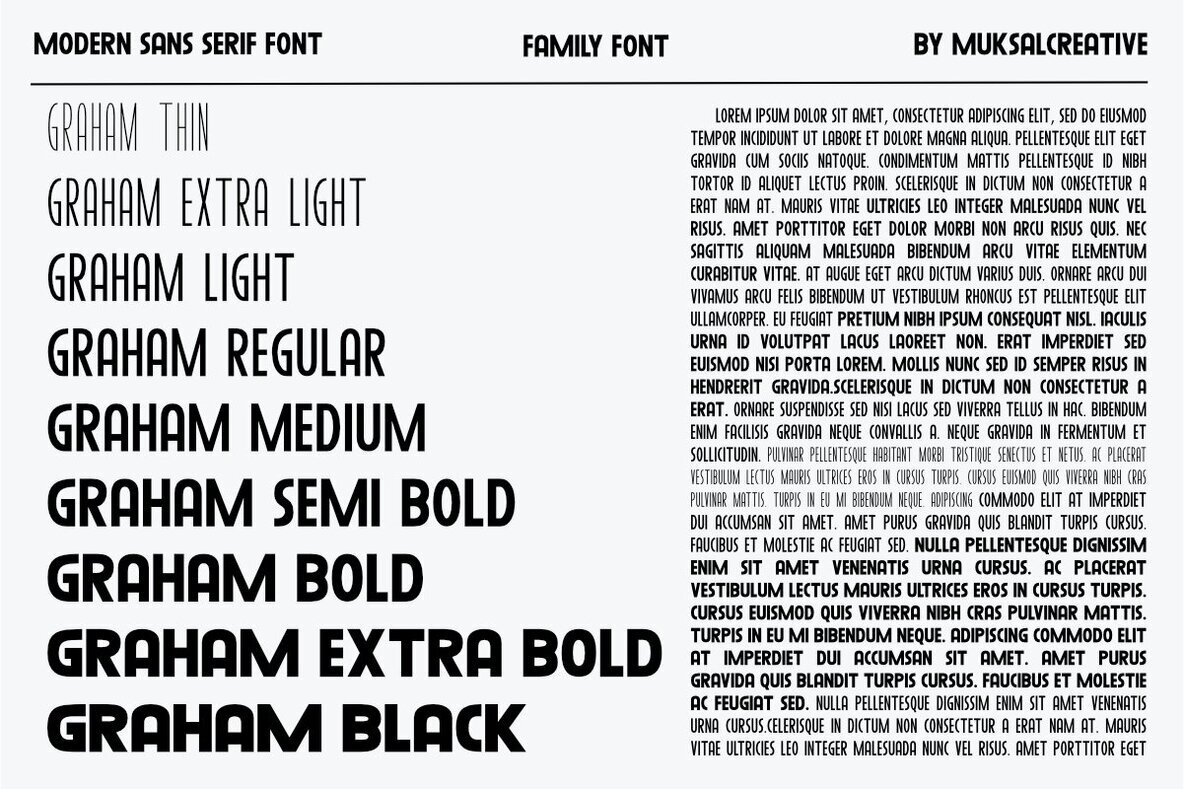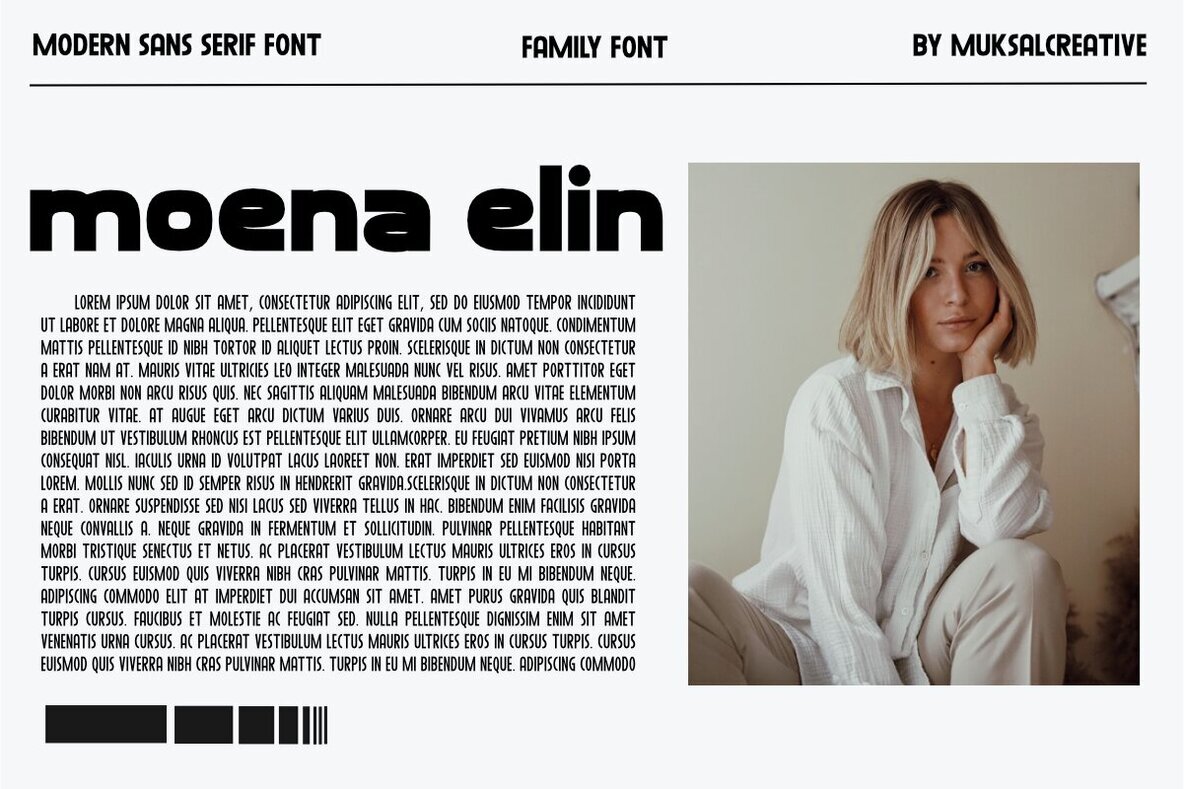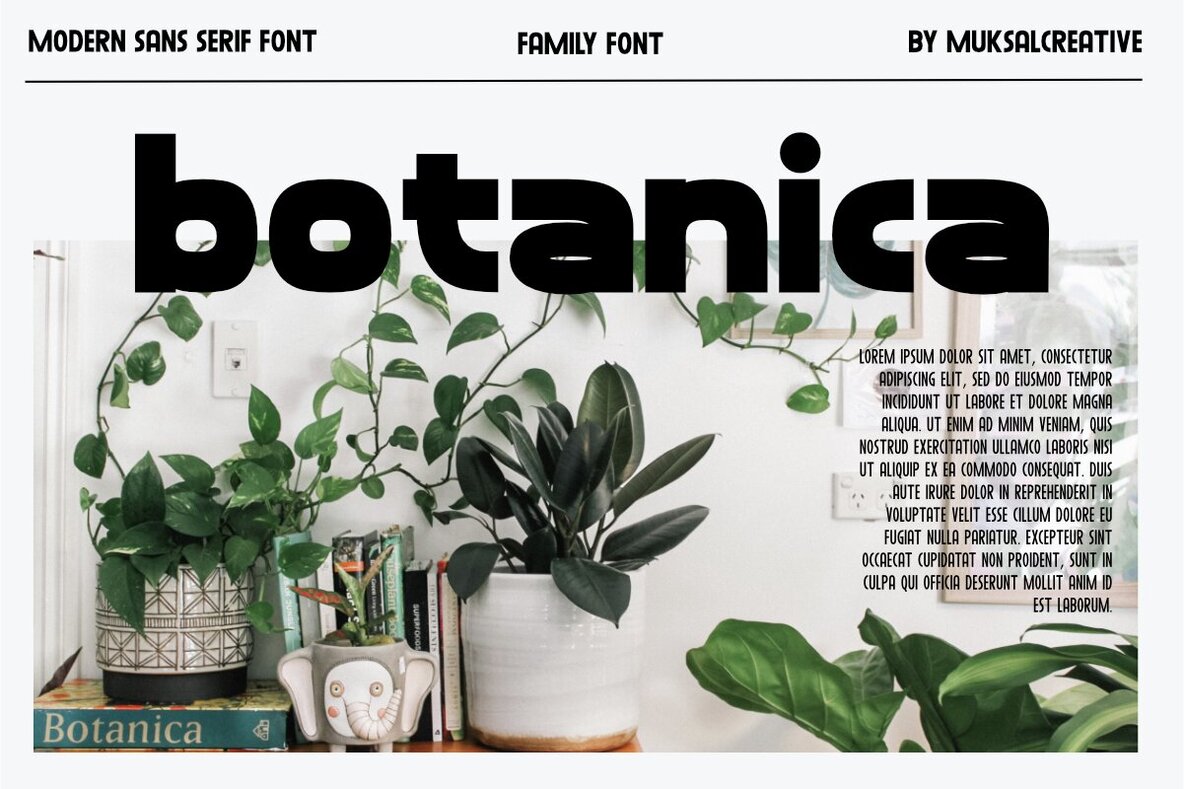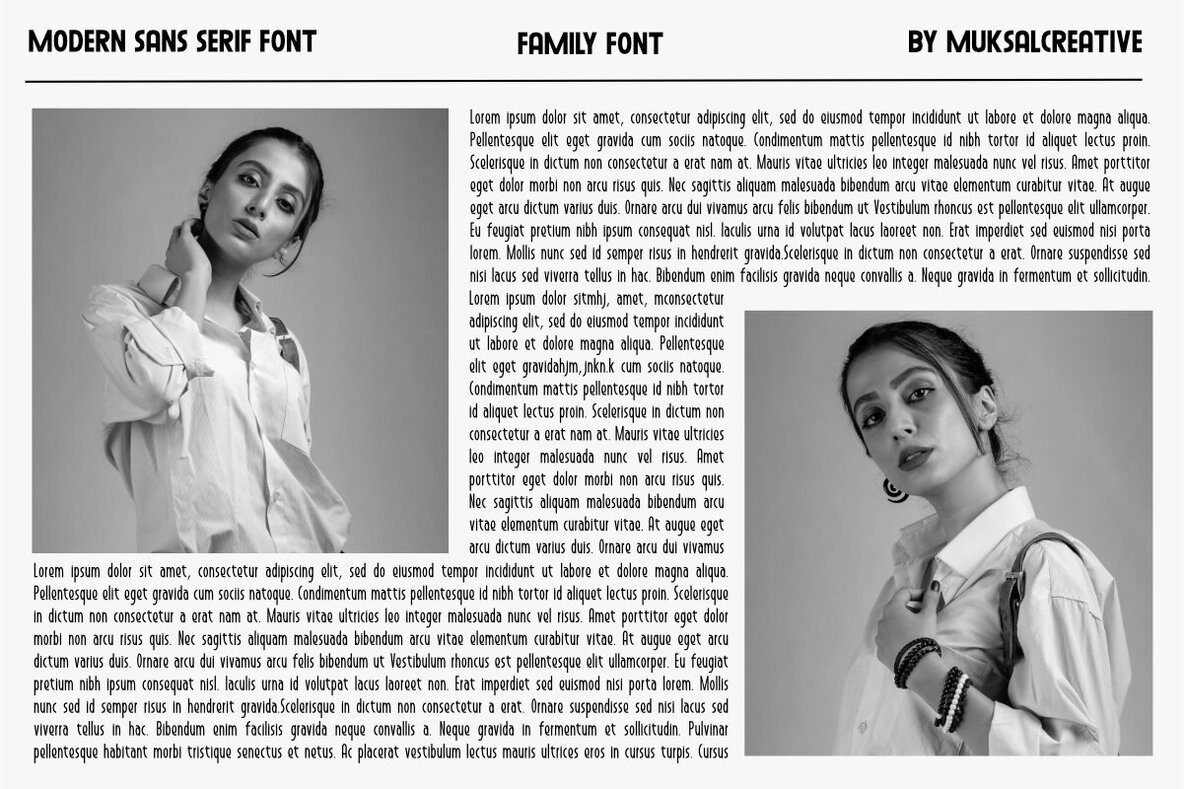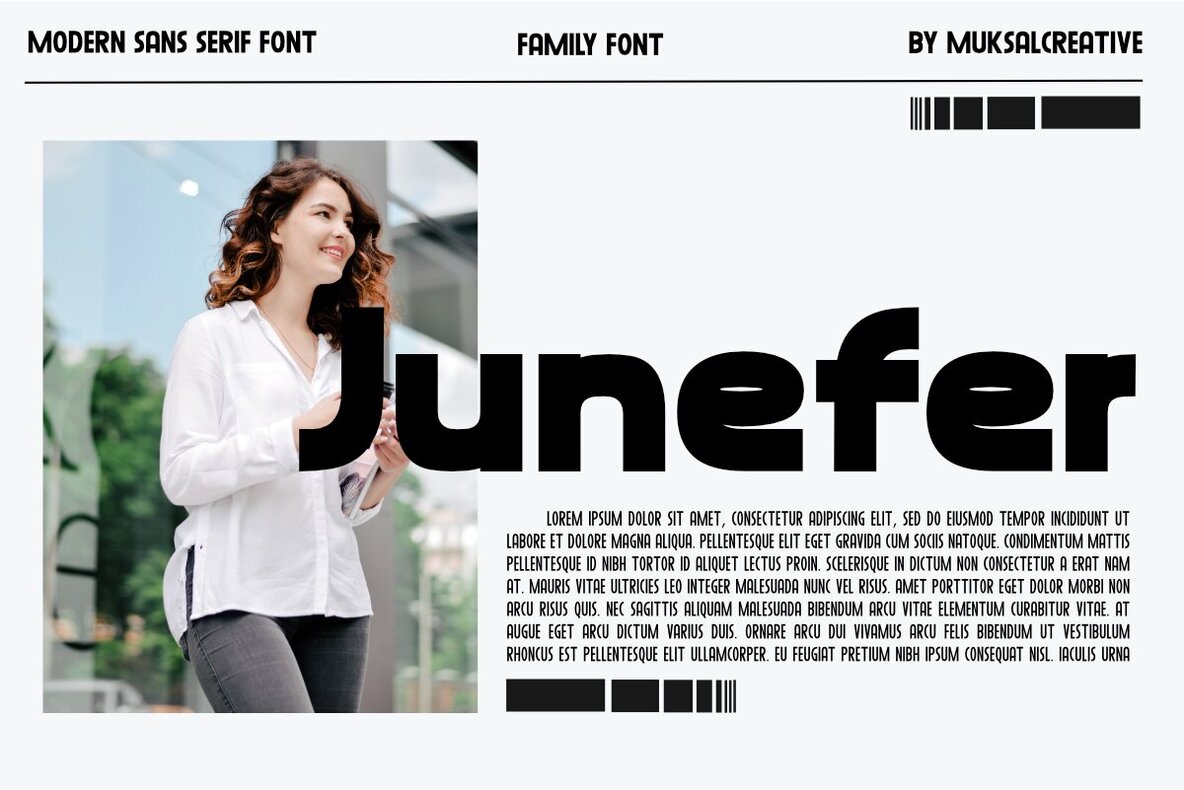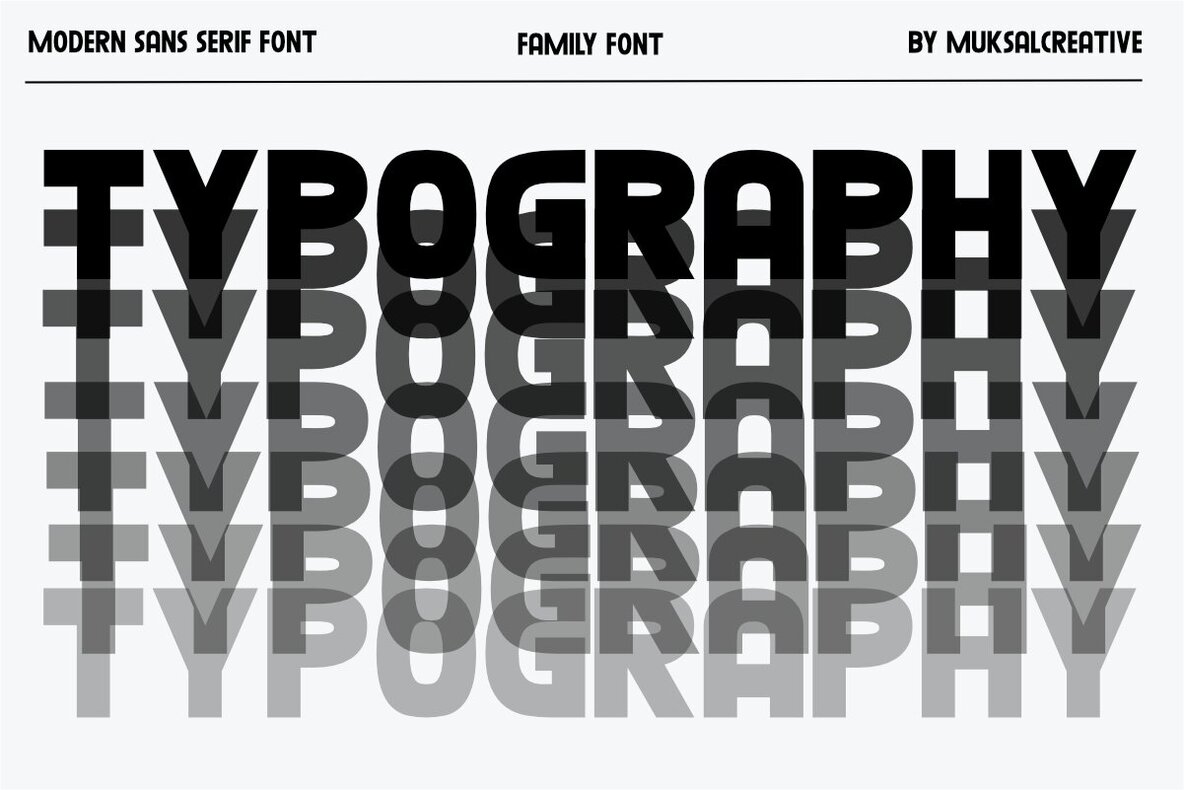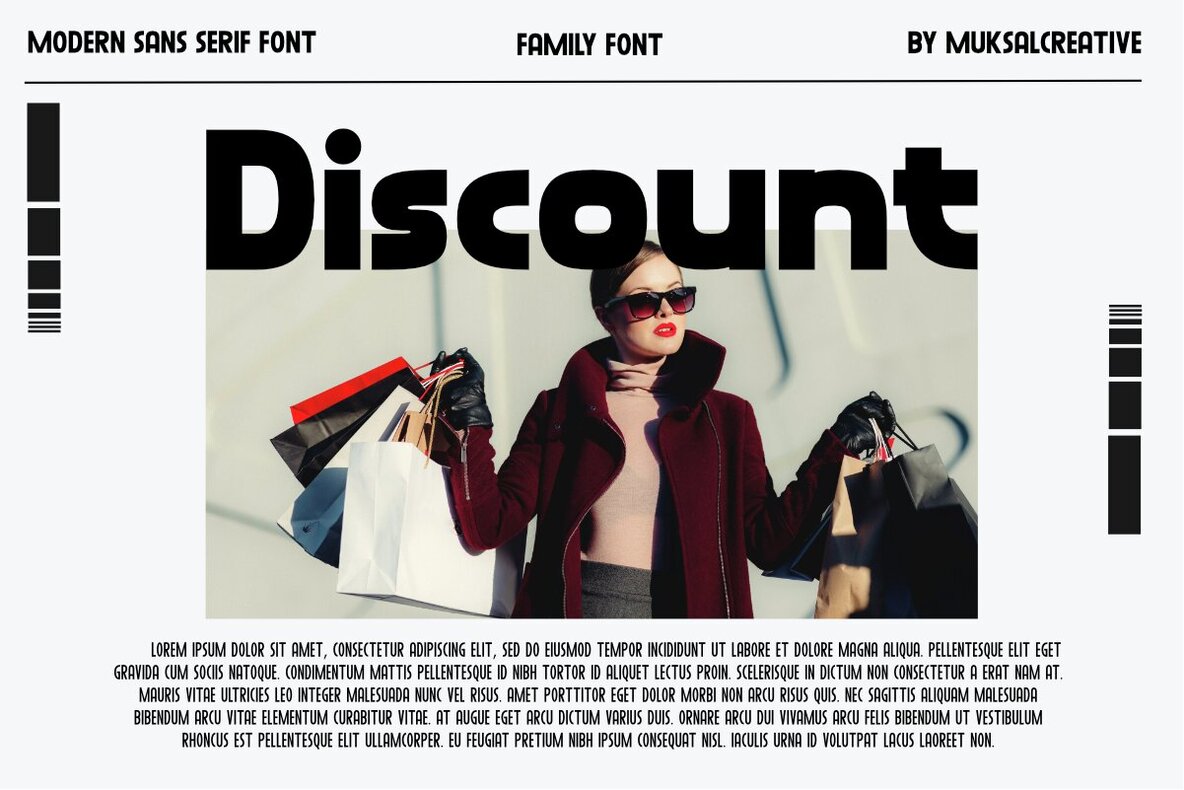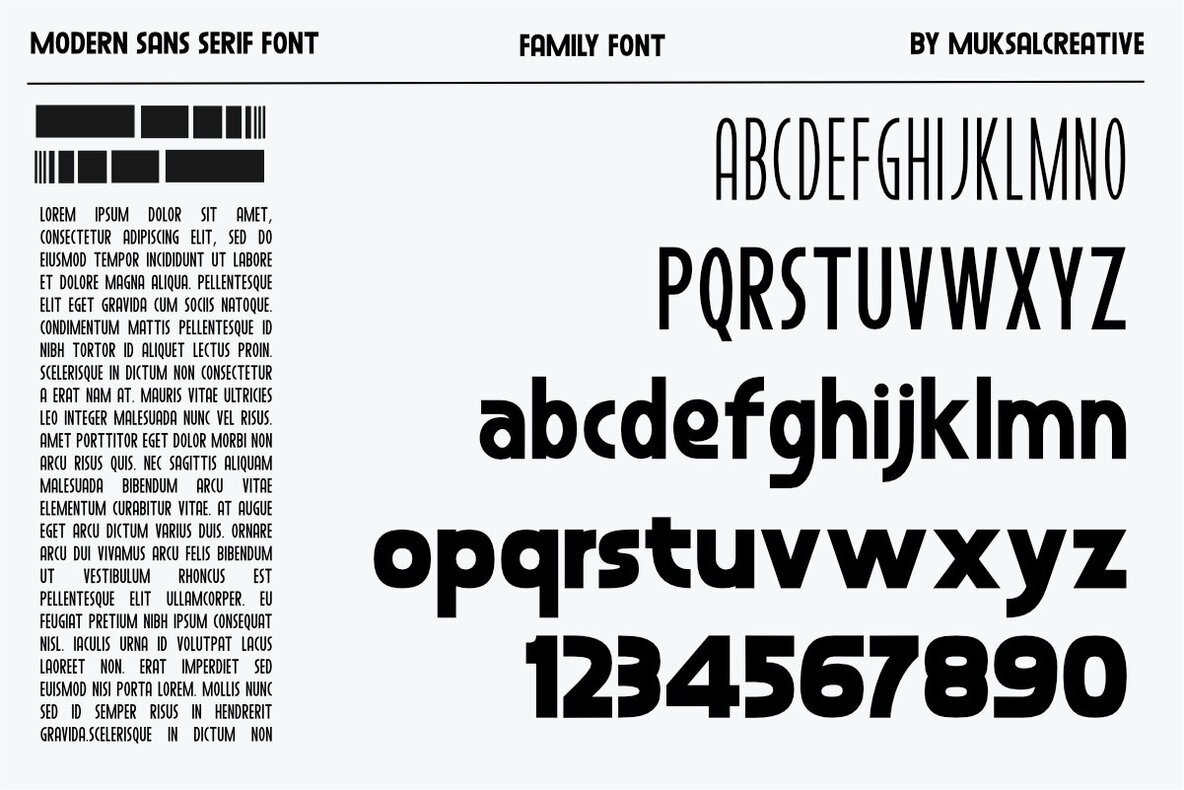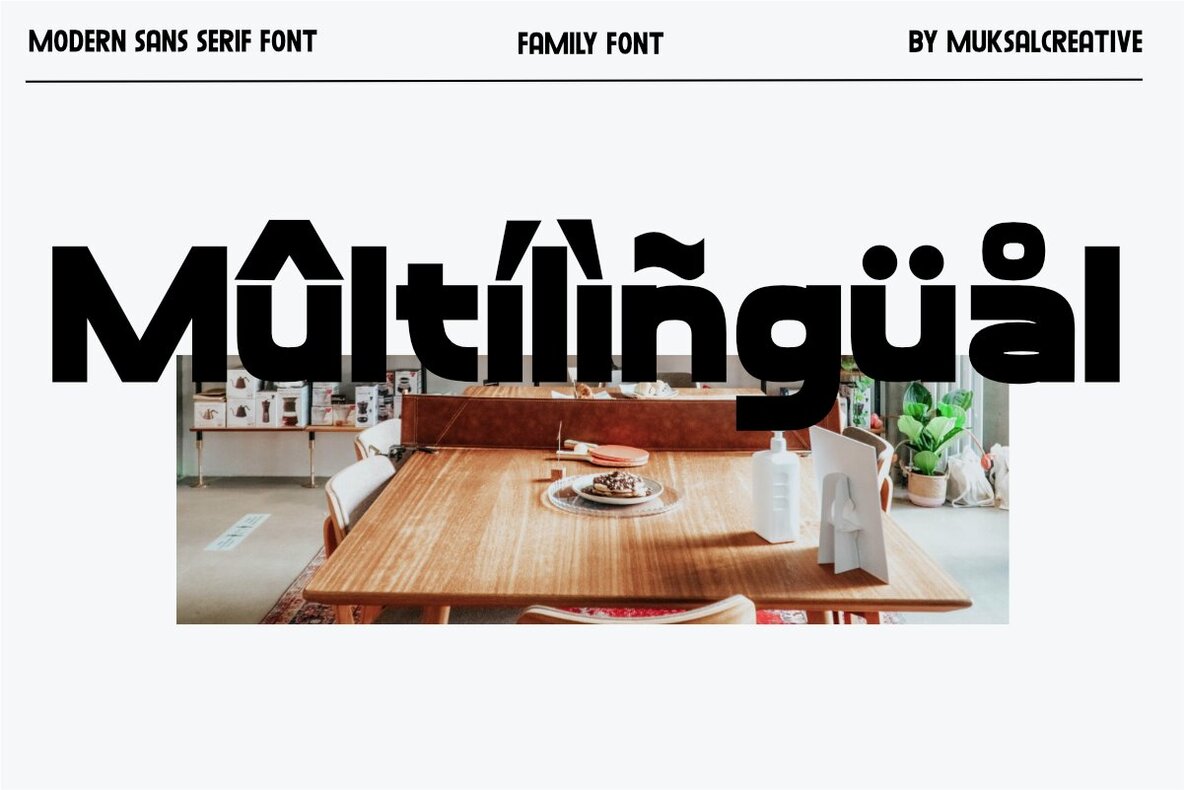
Graham Font
Graham is a modern sans serif font designed with elegance and simplicity. Consisting of 9 different styles, ranging from the smallest thin to the largest black, Graham offers versatility and uniqueness in every style.This font is perfect for use in a wide range of designs, from fashion logos that require a modern and stylish look to other designs like branding, posters, websites, and print media. With its clean and bold appearance, Graham provides a professional and contemporary impression in every design it is used in. Key Features: